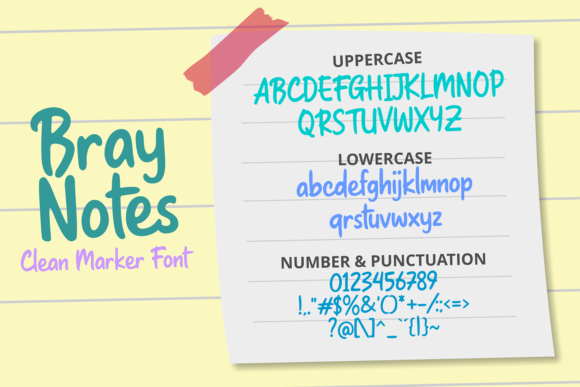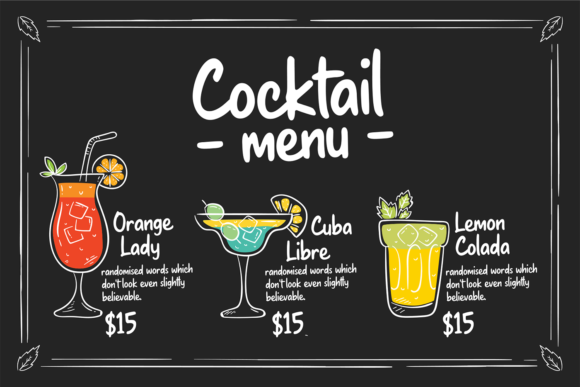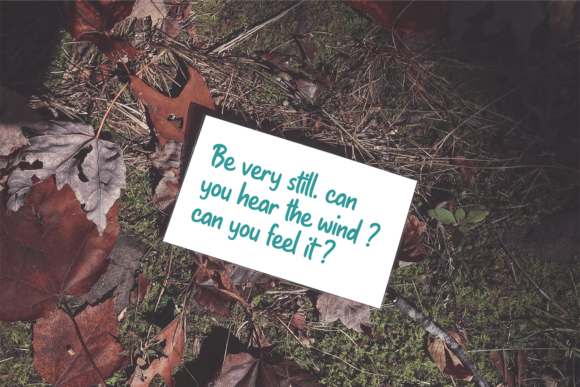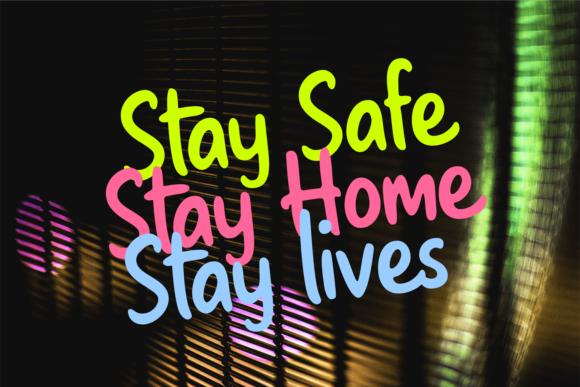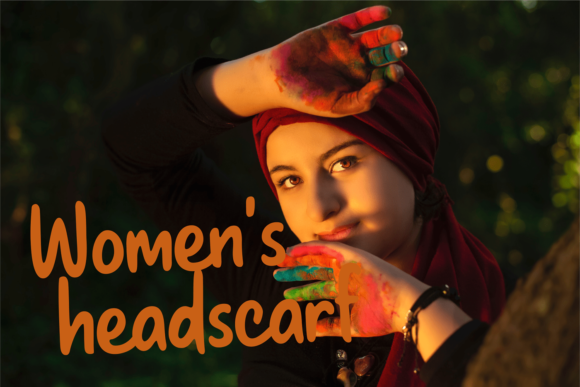
Bray Notes Font
About Bray Notes Font
Bray Notes is a marker-style script font with casual style. Use it for any design project that requires a personalized appearance!